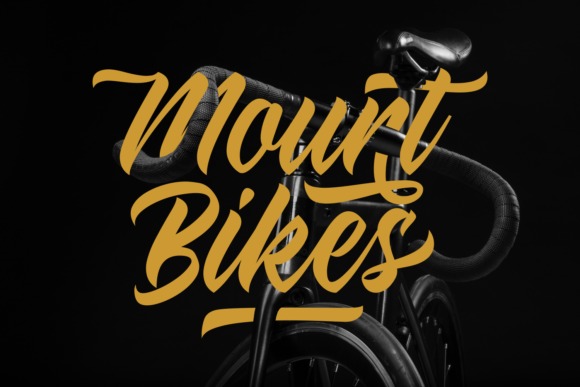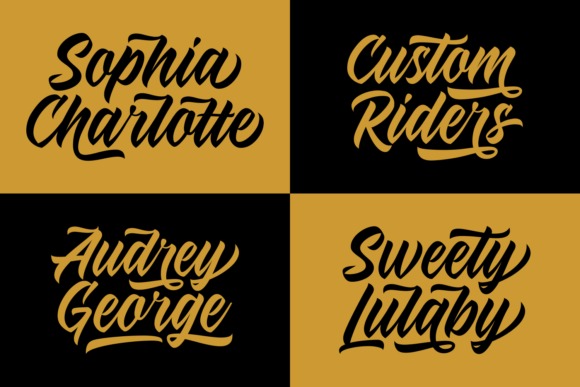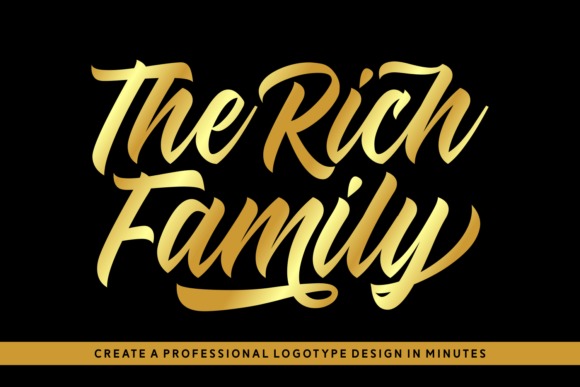
The Rich Family Bold Script Font
It’s a delicate, elegant and flowing bold handwritten font crafted & designed by Keithzo (7NTypes). Can be used for various purposes such as logos, wedding invitations, headings, t-shirts, youtube banners, layers, banners, mockups and many more. This font is PUA encoded which means you can access all glyphs and swashes with ease!